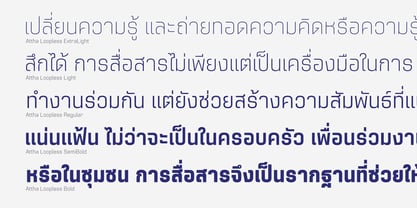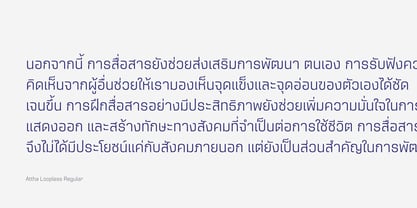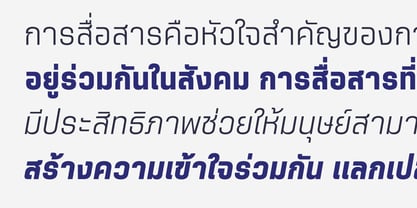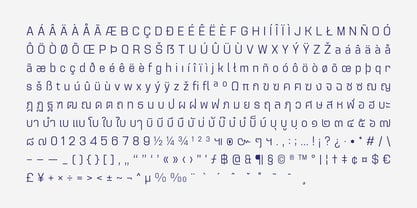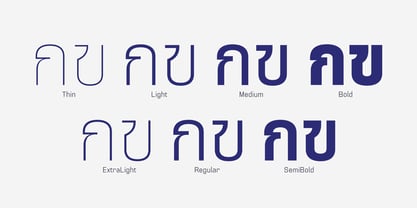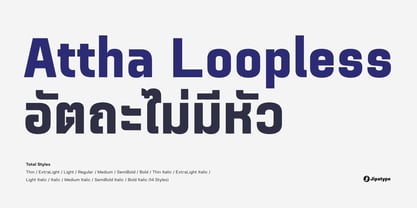
Attha Loopless
by Jipatype
The Attha Loopless Font Family was designed by Anupap Jaichumnan and published by Jipatype. Attha Loopless contains 14 styles and family package options. More about this family
Attha Loopless is a modern and dynamic extension of the original Attha family. This version features a complete redesign of the Thai characters into a contemporary loopless (ไม่มีหัว) style, while retaining the established Latin-1 characters from the Attha family. By removing the traditional loops, Attha Loopless offers a sleeker, more minimalist look, making it exceptionally clear and impactful at any size. It's an excellent choice for headlines, display text, branding, and all types of publications where a clean, bold, and modern aesthetic is desired. 14 styles for maximum design versatility. Supports Thai and Latin-1 languages.
Designers: Anupap Jaichumnan
Foundry: Jipatype
Jipatype is a type foundry founded and operated solely by Anupap Jaichamnarn, based in Bangkok, Thailand. Officially established in 2022, the foundry's journey began in 2019. The name "Jipatype" is derived from the Thai word “Jipatha” (จิปาถะ), meaning "miscellaneous" or "variety." This name reflects the diverse design concepts and influences that shape Jipatype’s versatile font collections.